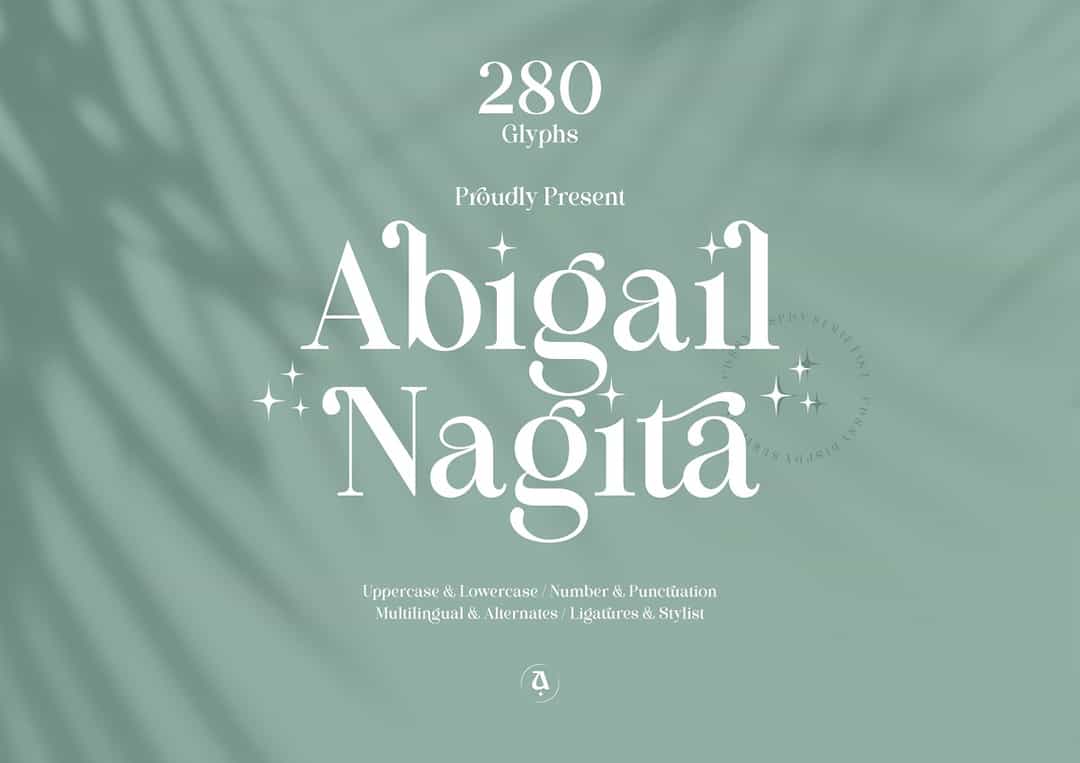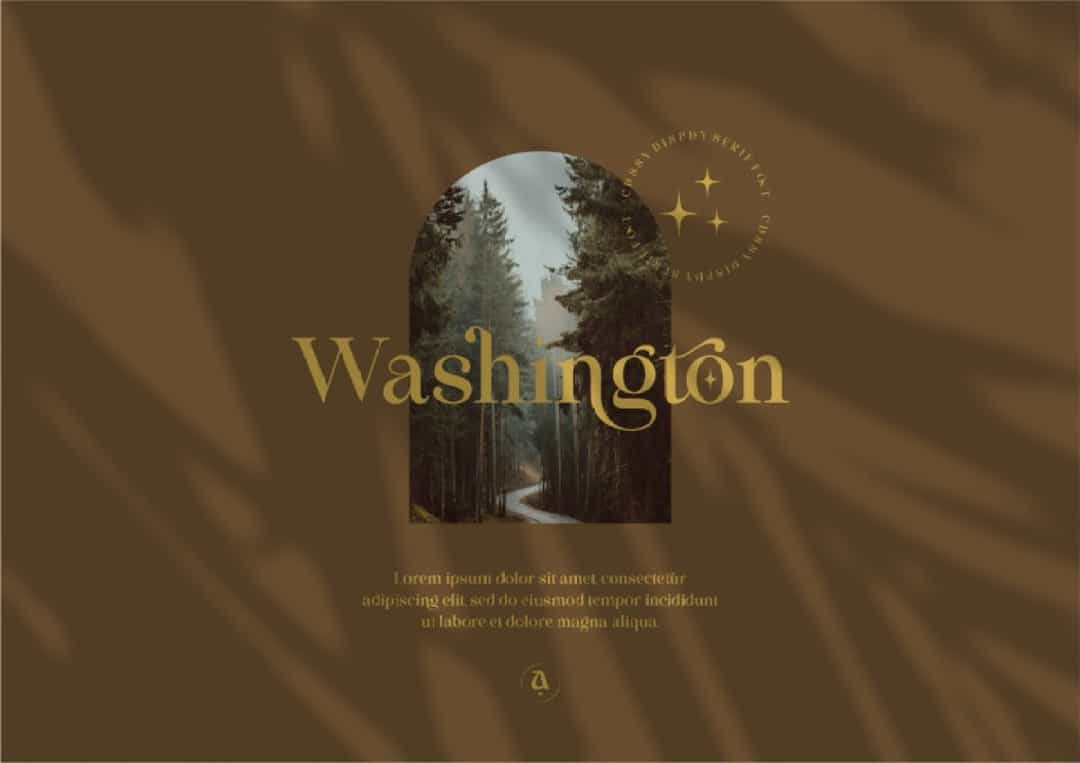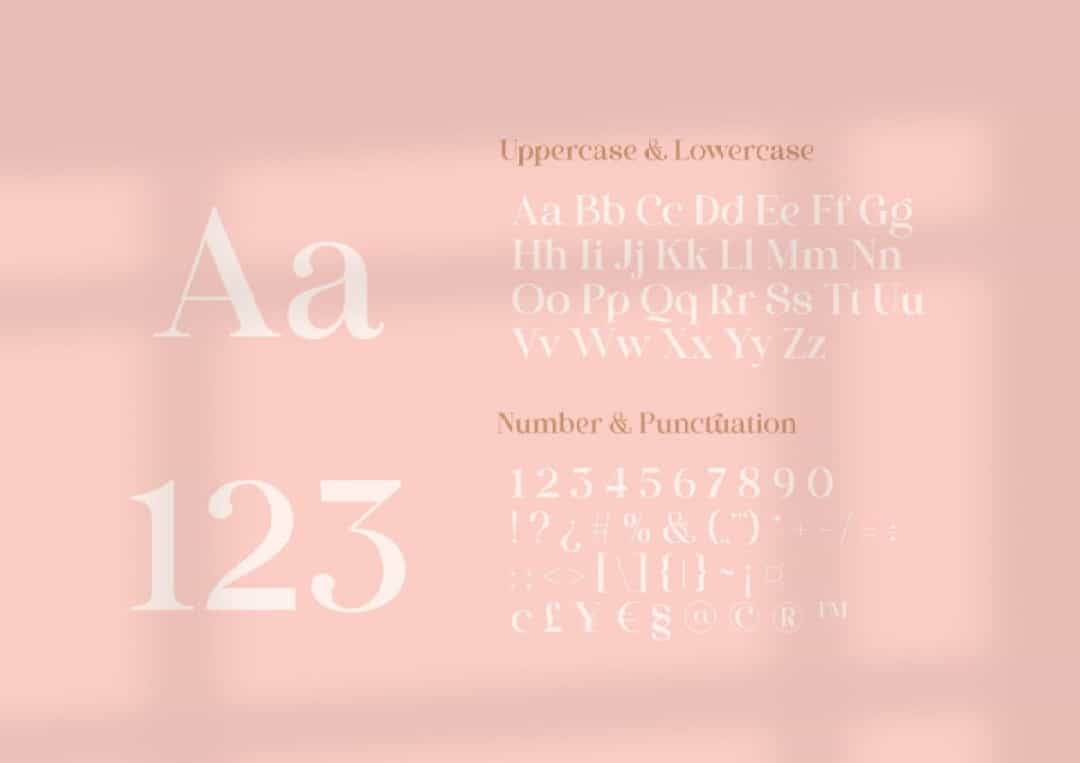
Abigail Nagita is an elegant font with a contemporary, elegant, and classy aesthetic that adds individual style to your artwork. PUA encoded, you have access to all its incredible glyphs and ligatures easily!